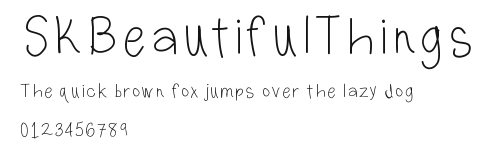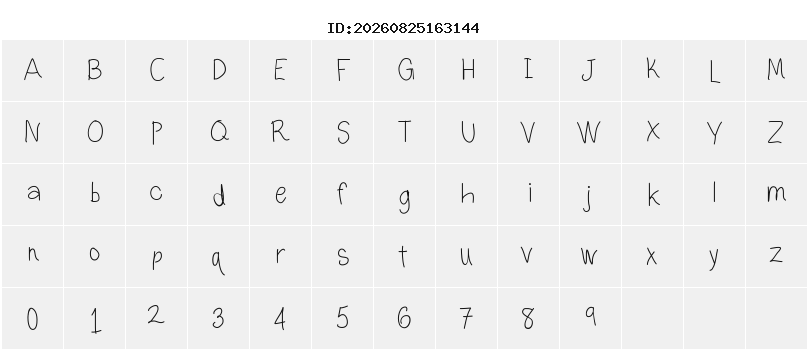
• Font Name: SKBeautifulThings
• Font Style: Things
• Full Font Name: SKBeautifulThings
• PostScript Name: SKBeautifulThings
About SKBeautifulThings.ttf
SKBeautifulThings.ttf is a modern, elegant sans-serif font designed for ultimate readability and visual harmony. Perfect for branding, headlines, web design, and print materials.